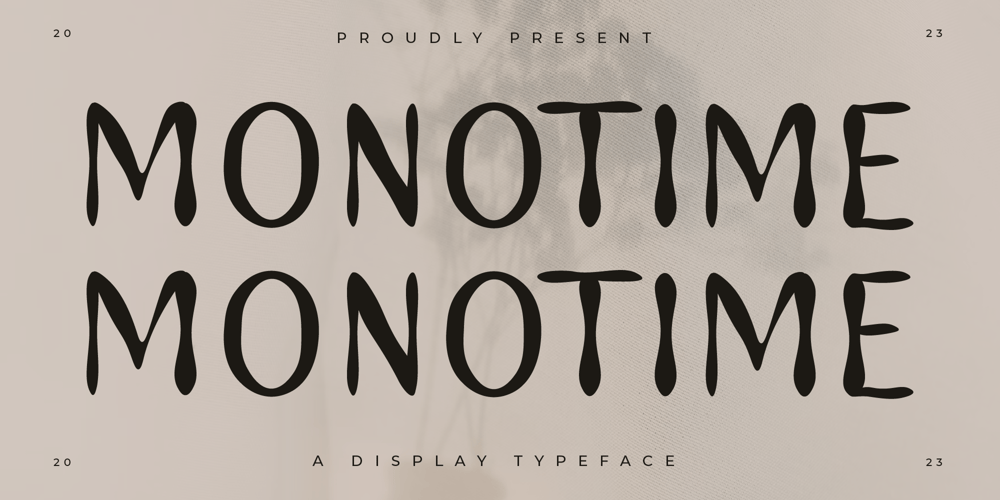
Monotime
Monotime font
Monotime Font Family was designed by Heru Utama Putra and published by Letterena Studios. Monotime contains 2 styles and family package options. Monotime Typeface is a playful and modern display font with a unique style.This typeface is perfect for an elegant & luxury logo, book or movie title design, fashion brand, magazine, clothes, lettering, quotes, and so much more.